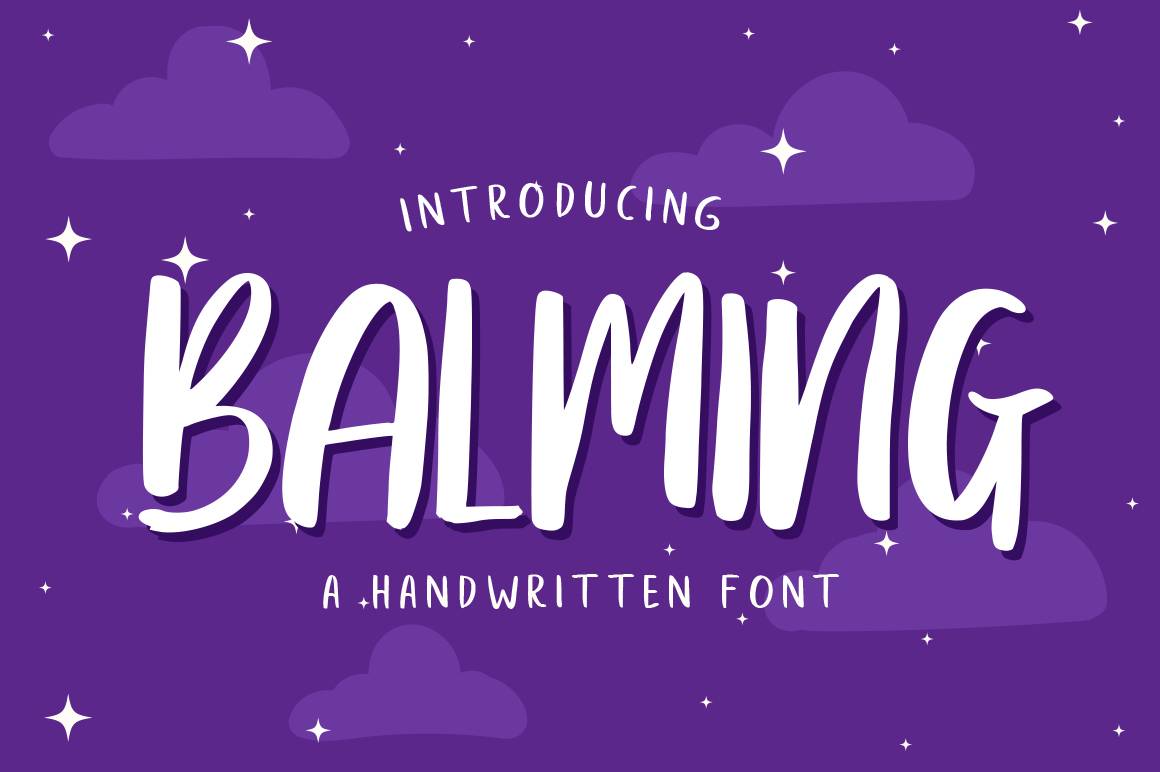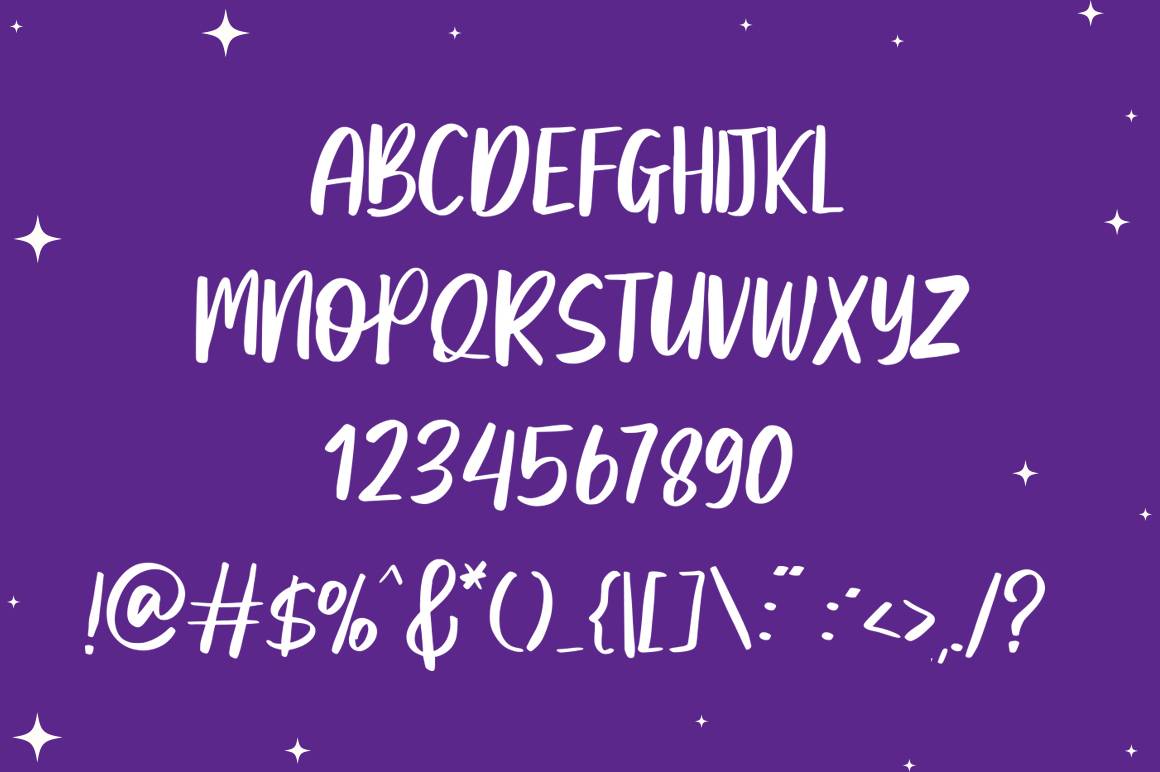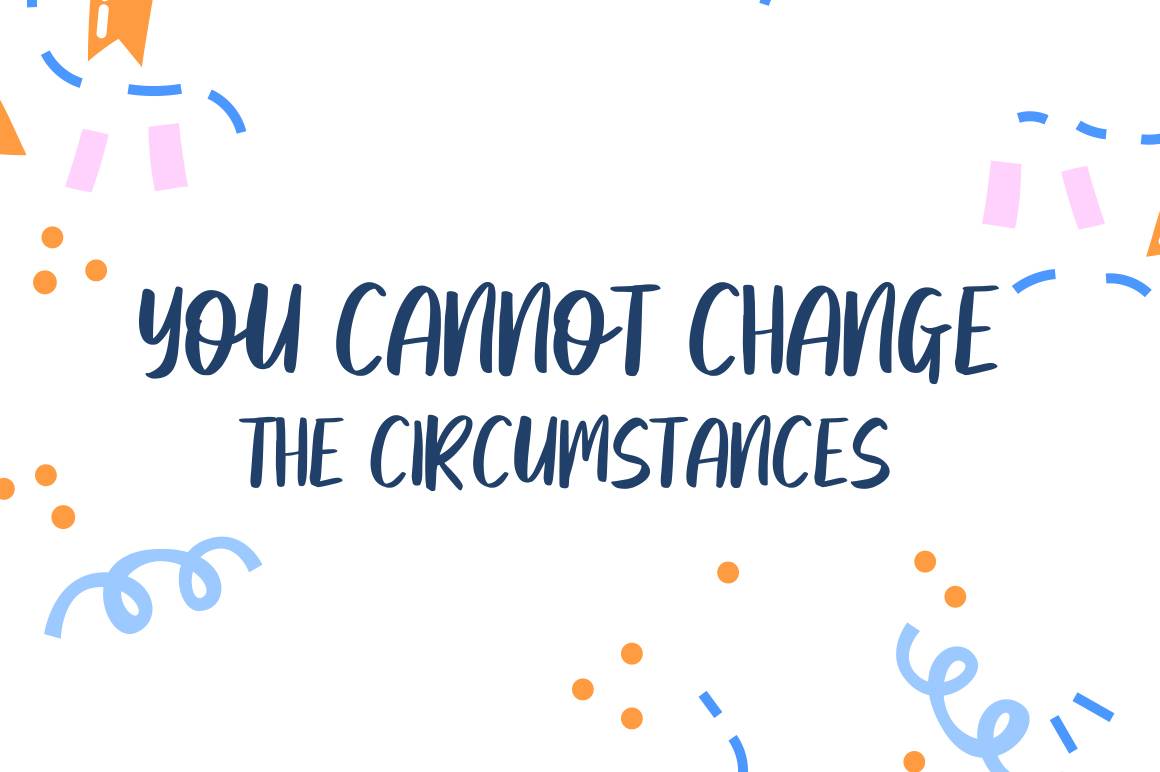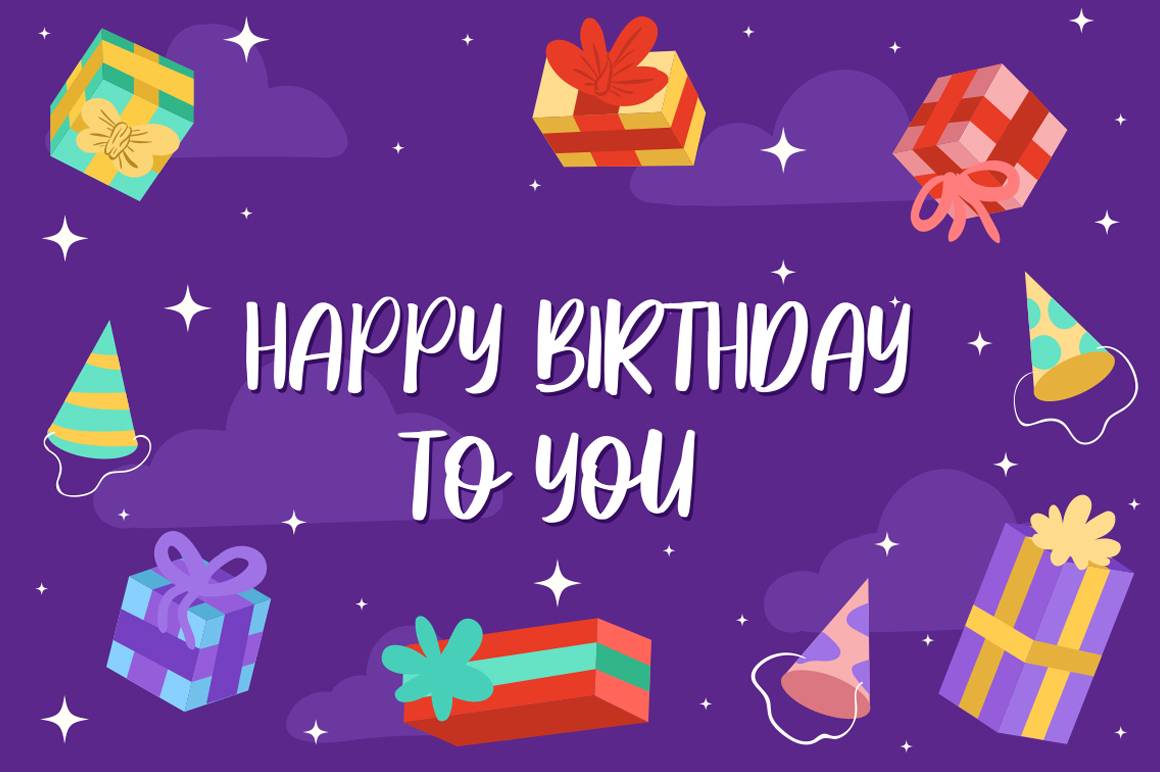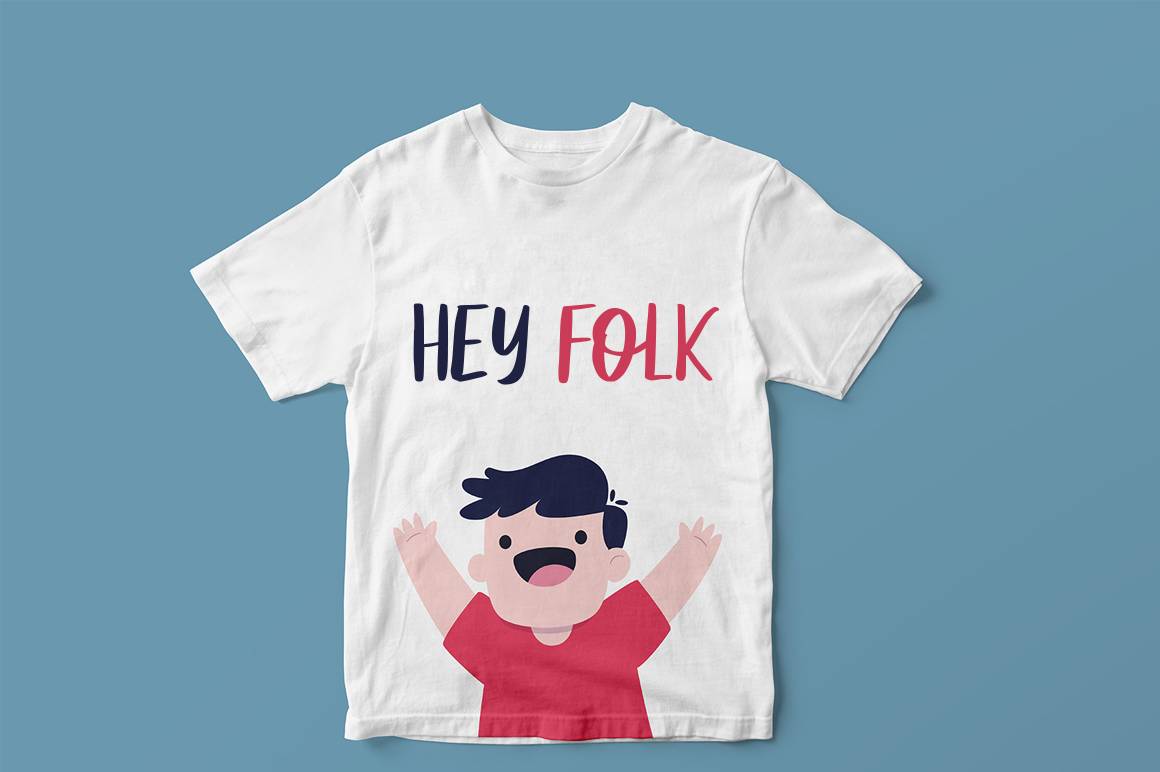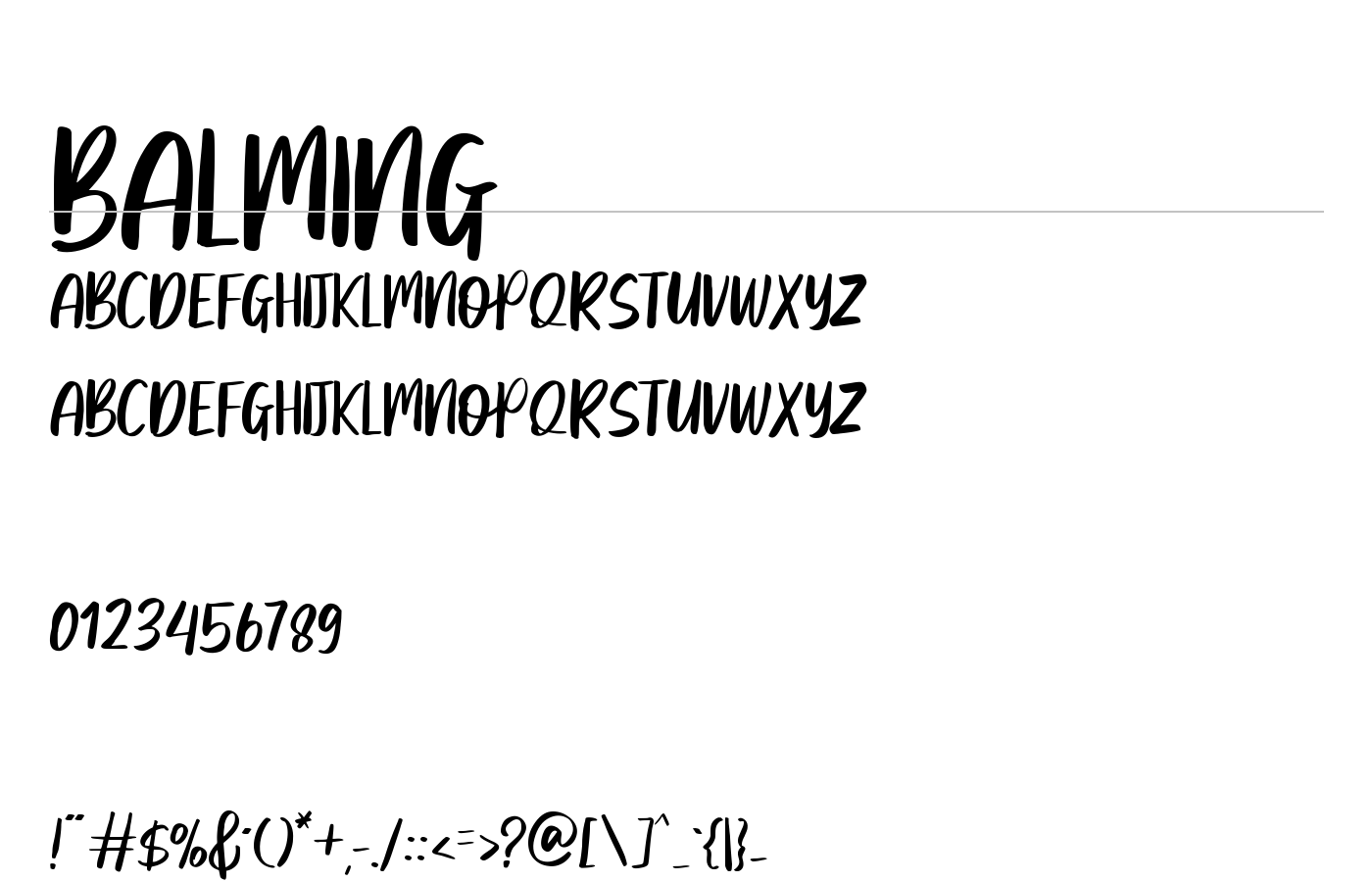
Balming Font is a playful and casual script font featuring a hand-drawn, brush-like style with lively, irregular letterforms. Its medium weight and upright strokes give it a friendly, approachable feel, perfect for creative and informal branding, social media graphics, or fun headline uses. This font brings a warm, personal touch to designs needing energy and character without sacrificing readability.
Balming Font
About Balming Font